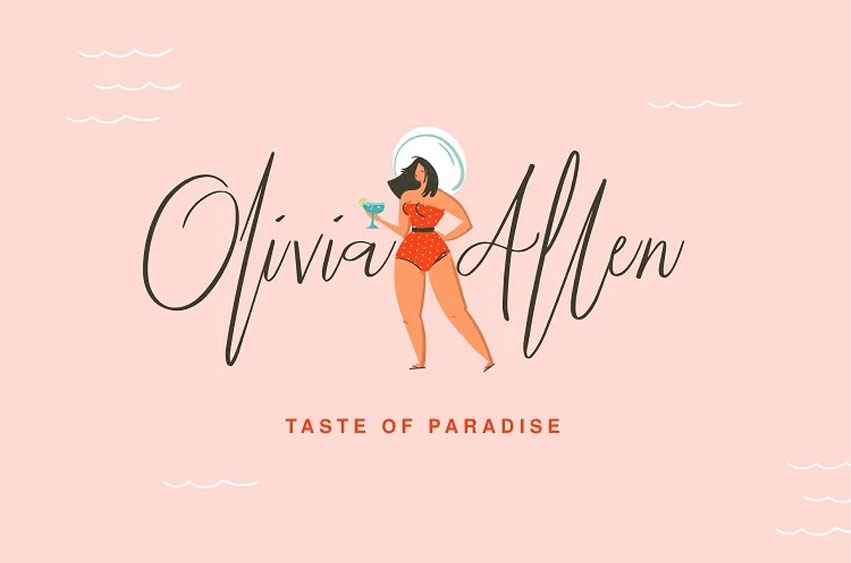
Billie Harley Script Font
Billie Harley is a signature font that gives the feeling of being slender and chic. It fits perfectly in all types of design projects such as fashion, wedding, blogs, branding and many more.